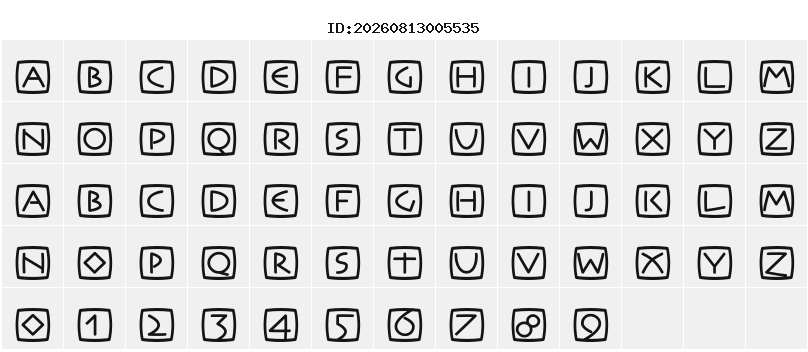
• Font Name: RememberManhattan
• Font Style: Bolkd
• Full Font Name: RememberManhattan Bolkd
About RememberManhattan.ttf
RememberManhattan.ttf is a modern, elegant sans-serif font designed for ultimate readability and visual harmony. Perfect for branding, headlines, web design, and print materials.